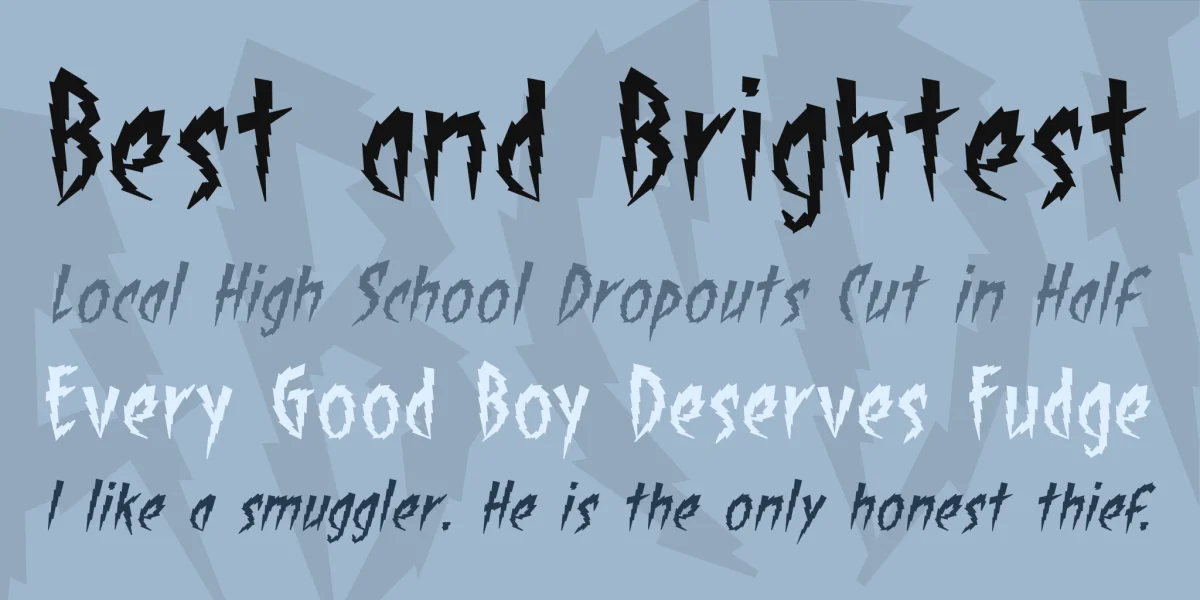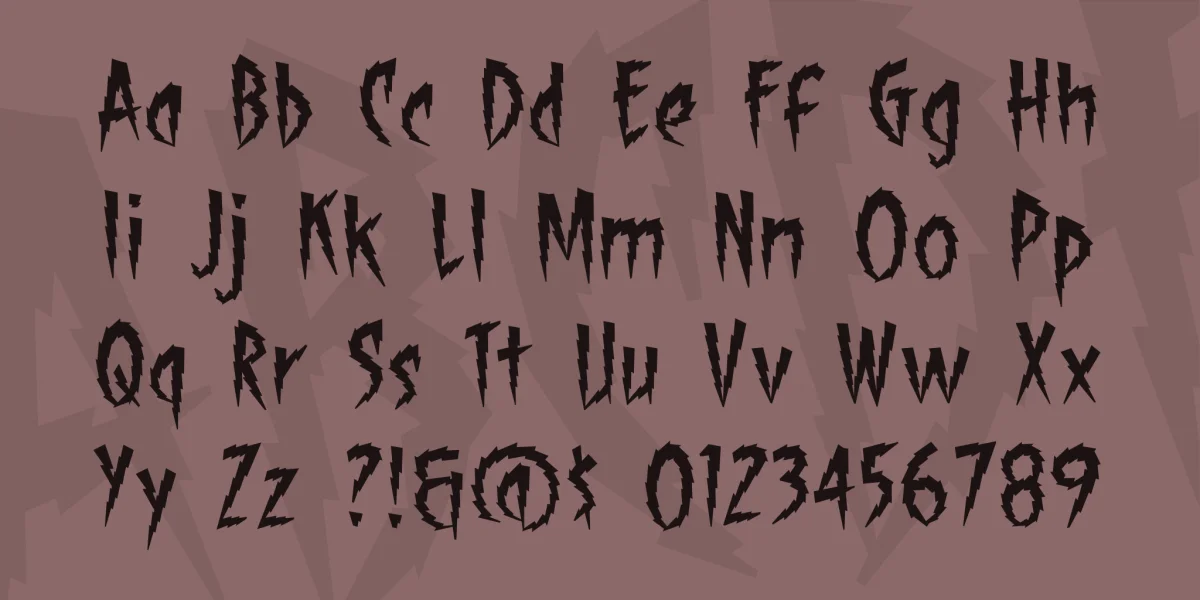
SHOCK THERAPY is designed for all your electrical sound effects needs. It has sharp, lightning-bolt edges and comes with upper and lowercase characters. Regular and Italic included.